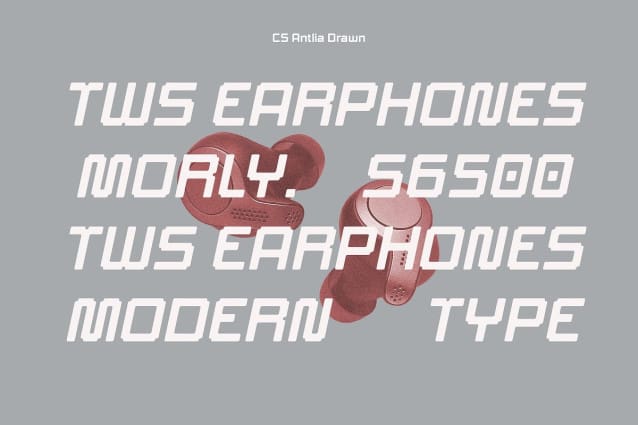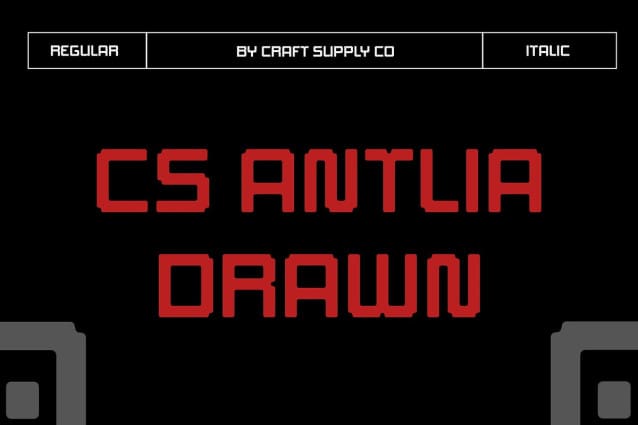
CS Antlia Drawn Font
CS Antlia Drawn Font is a dynamic display font that fuses the retro charm of pixel art with the sleek, cutting-edge feel of futuristic technology. Inspired by digital and techno design elements, this font features clean, sharp geometric shapes that evoke a modern, digital aesthetic. The angular letterforms contribute to its high-tech look, while its futuristic vibe makes it the perfect choice for designs that need to stand out in the digital age.
Hand-Drawn Effect for Artistic Depth What sets this font apart is its unique hand-drawn effect, which adds an organic, artistic touch to its otherwise digital-inspired forms. This unexpected tactile quality brings depth and character to each letter, infusing the font with personality and warmth. The blend of geometric precision with handmade nuances creates a perfect contrast, making this font feel both innovative and grounded in traditional craftsmanship.
Perfect for Tech, Gaming, and Digital Media Ideal for projects in the tech, gaming, and digital media industries, this drawn font captures the essence of modern innovation with its striking, bold appearance. Its geometric shapes and sharp lines convey a sense of cutting-edge technology, while the hand-drawn effect provides a unique, humanized touch.